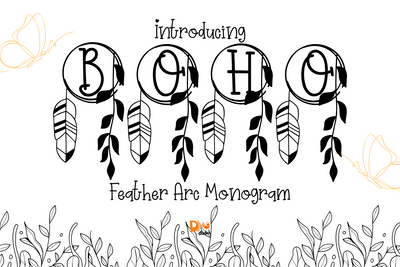
Feather Arc Monogram
Feather Arc Monogram – Elegant Serif Monogram Font with Arched Feather Details
Feather Arc Monogram is a graceful serif monogram font featuring uppercase letters adorned with delicately hand-drawn feathers arranged in soft, curved arcs. Perfectly balancing structure and flow, this font brings a light, bohemian elegance to personalized initials, wedding designs, Cricut crafts, and boutique branding.
Arched Feather Embellishments: Elegant feather illustrations form a curved arc around each letter, creating a harmonious, airy composition.
Classic Serif Letterforms: Strong, clean serif construction ensures timeless versatility and elegance.
Boho Minimalism: Subtle yet artistic—ideal for logos, monograms, and feminine design work.